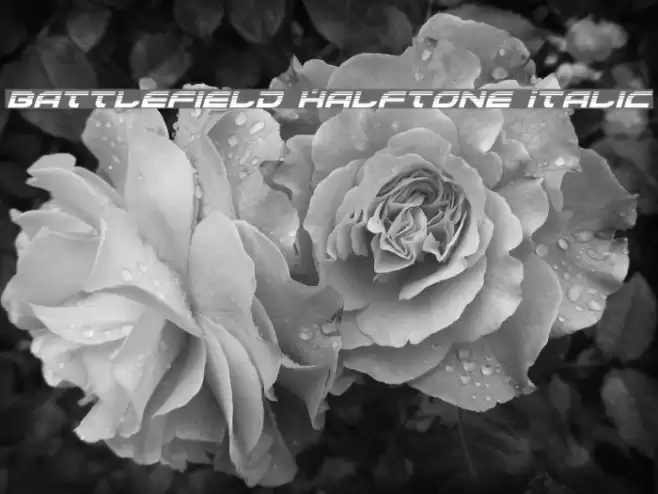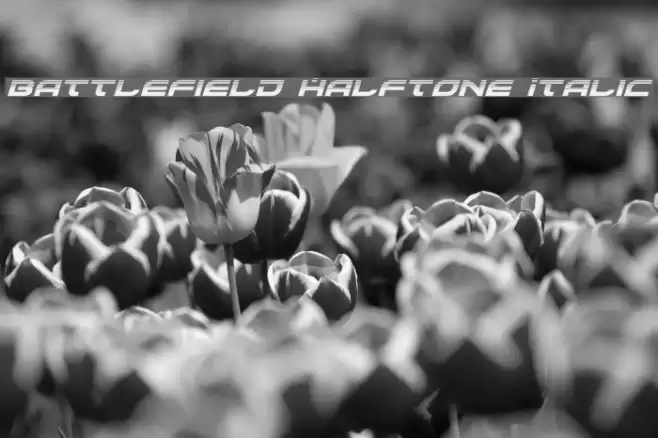
Battlefield Halftone Italic Font
Battlefield Halftone Italic Description
This font features a bold, futuristic design with a halftone effect that gives it a dynamic and energetic appearance. The italicized letters add a sense of motion, making it ideal for projects that require a modern and edgy look. The characters are constructed with a series of horizontal lines, creating a unique texture that stands out. The uppercase and lowercase letters maintain a consistent style, while the numbers and special characters complement the overall aesthetic. This font is perfect for creating eye-catching headlines, posters, and branding materials that need a strong visual impact.
A bold, futuristic italic font with a halftone effect and dynamic design from Uncategorized fonts.
- Proposed Projects: Ideal for futuristic branding, sci-fi posters, video game titles, and dynamic advertising campaigns.